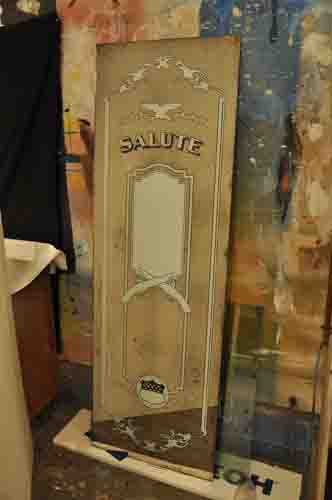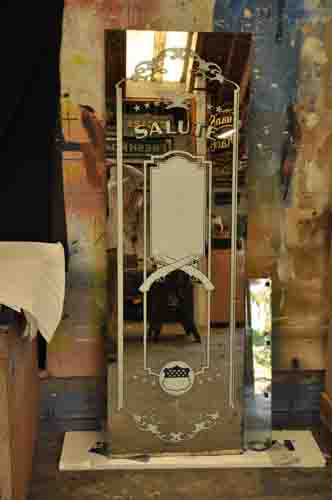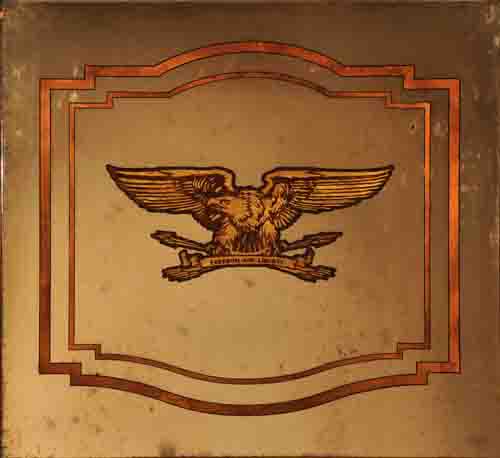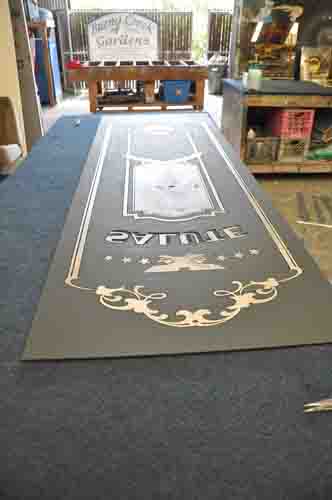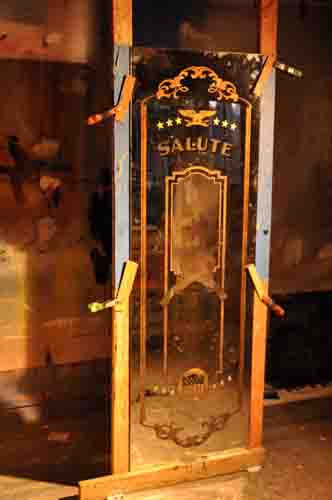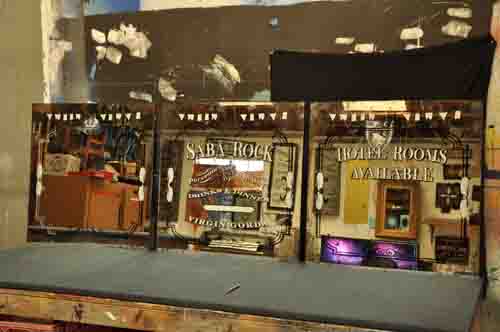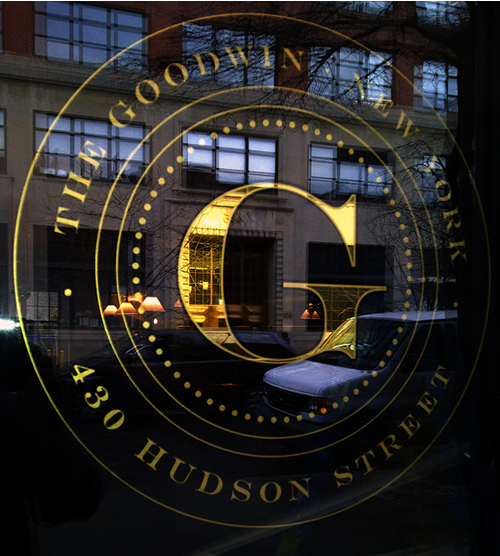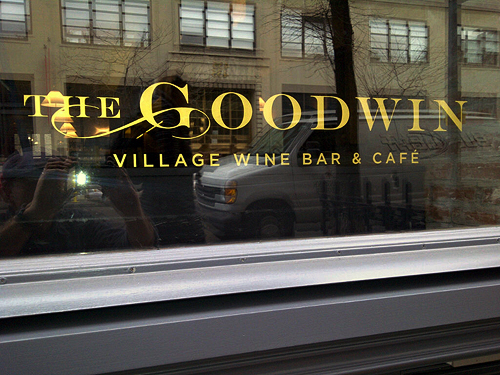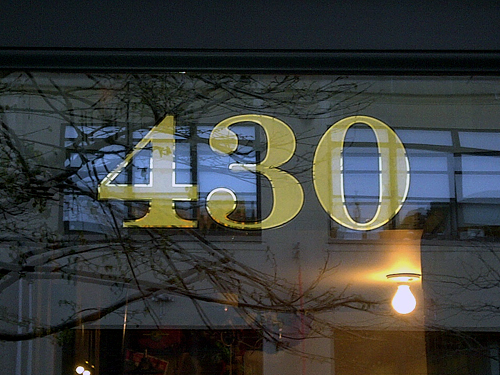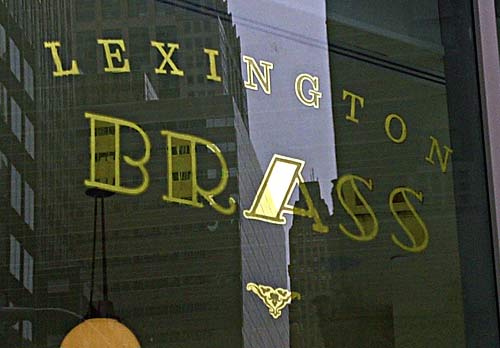
I had some time lately to add a new client list to my web site and the first one we did was for the newest Ralph Lauren project that was completed. There is a link to the blog for some step by step info.
wonderful looking work Rod ! In your step by step there is a photo of your chipping booth............when you have time could you speak more about that and show more pics ? thanks
I should mention that all the on site work at the two New York locations was done by Bob Gamach.
The chipping cabinet has a 220v electric heater inside , an old bathroom fan to circulate the air and about 12 of those small plastic tubs of dissicant to lower the humidity.
Roderick, I've worked with Dykale Dunkley on past projects for Double RL, including a store in East Hampton, Long Island. Double RL loves this type of distressed and vintage signs and graphics.
I had some free time today so I thought I'd post some photos of the latest project I am working on for a civil war buff in Pennsylvania. Right now it is at the stage where it is antique mirrored and outlined. The eagle photo is a sample of what it will look like
when I saw the first pic the perspective threw my off and I thought the panel was on the floor....... and thought man o man ! what a hugh piece of glass.......then I realized it's on a table . Very nice piece Rod....have lots of fun !!. It's always great to see what you do and how you do it.........thanks
Here is an update on my progress.
Here it is all finished up.
Rod, we really need some close ups!
I want to see the details.
Great job as usualRod! Love the look. What's the pricetag on that puppy? Your client will be very pleased.
Just wanted to share a job I gilded today in the west village. The Goodwin Wine Bar and Cafe. Nice People, the space is kinda hidden but super cool, typical west village nyc. Will open next month. Door gilding was a 19" circle $600. 2 Side windows 30" wide x about 2" high $150 each. Transom number 4" high $300. Cant wait to bring my wife there for a couple of drinks on the house!
Bob wonderful looking work.
Did you use Lemon gold for the matte center or size?
Bob, could you speak about the G in the circle........that's a really intense gild !
Hey guys sorry about the delay in responding. Thanks for the interest. This was a very simple straight forward job. A lot simpler than it looks.
Mr Tyler, I used 23k on the whole job, maybe I'll try some lemon next time around!
Vance, First I quick sized the outline of the 'G', surface gilded it then outlined that outline with black, then water gilded the center. So its just the opposite of a matte center w/burnished outline. (its a burnished center w/matte outline). No big deal! But it looks nice!
Happy to say the mirror was installed on this past Thursday in manhattan. The pub is on E28th btwn park ave south and madison. Has alot more impact in person, it was hard to get a good shot. Just wanted to you guys see the finished mirror.